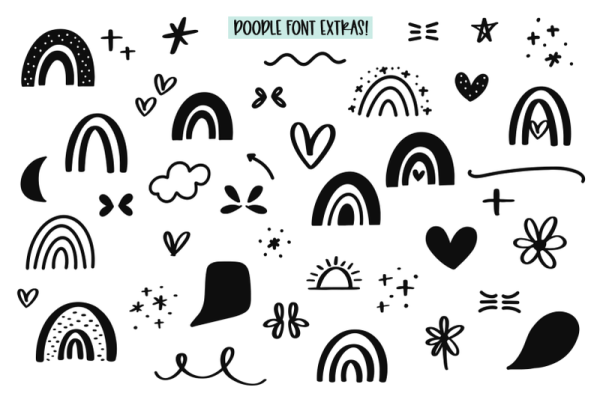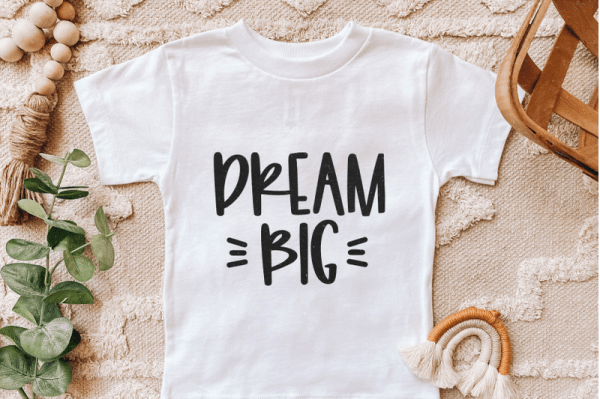
Freebie Wednesday: Rainbow Dreams Font.
Rainbow Dreams is a bouncy handwritten font with extra font doodles! Includes a doodle font – Rainbow Dreams Extras – with 52 decorative doodles! This font is perfect for quotes, branding, ornaments, shirts, mugs, headings, blogs, logos, invitations and more!